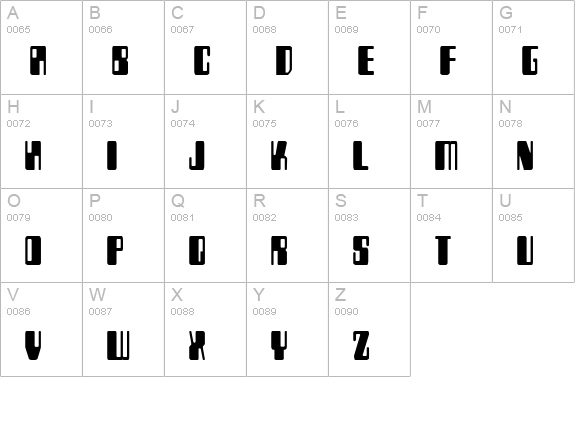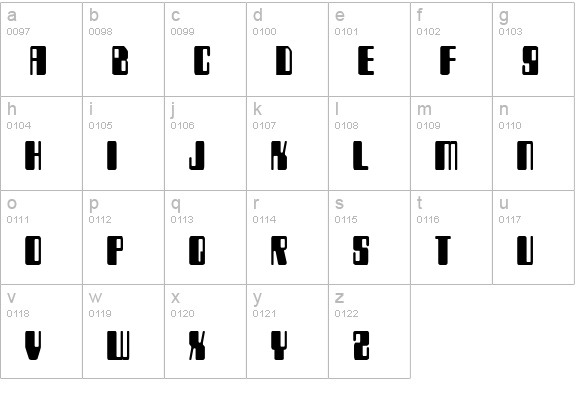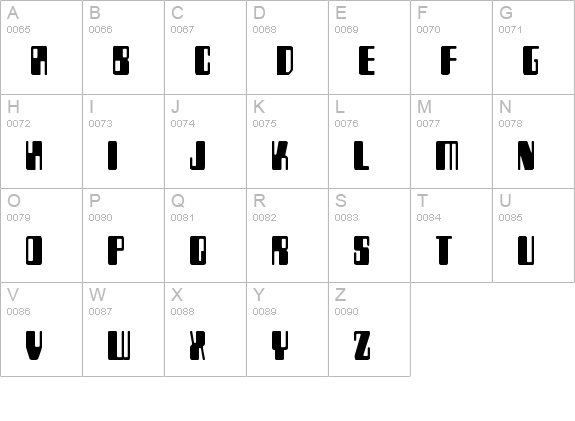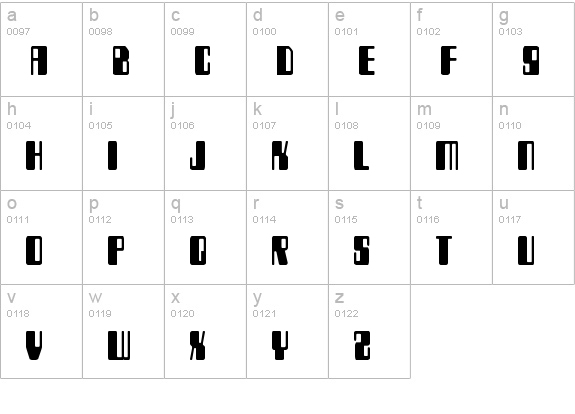
Zyborgs Condensed is a distinctive, condensed-width variant in the Zyborgs typeface family \xE2\x80\x94 well suited to design and typography projects.
Zyborgs Condensed font is a sleek and modern typeface that exudes a futuristic and technological vibe. With its sharp lines and geometric shapes, this font is perfect for adding a contemporary touch to any design project. The condensed style of Zyborgs makes it ideal for headlines, titles, and branding materials where space is limited. What makes Zyborgs Condensed font even more appealing is that it is available for free download at FontsMarket.com. This means that you can easily access this stylish font without any cost, making it a valuable addition to your font library. Whether you're working on a website, logo, poster, or any other creative project, Zyborgs Condensed font is a versatile choice that will help your designs stand out. Download it today and elevate your typography game with this impressive typeface.